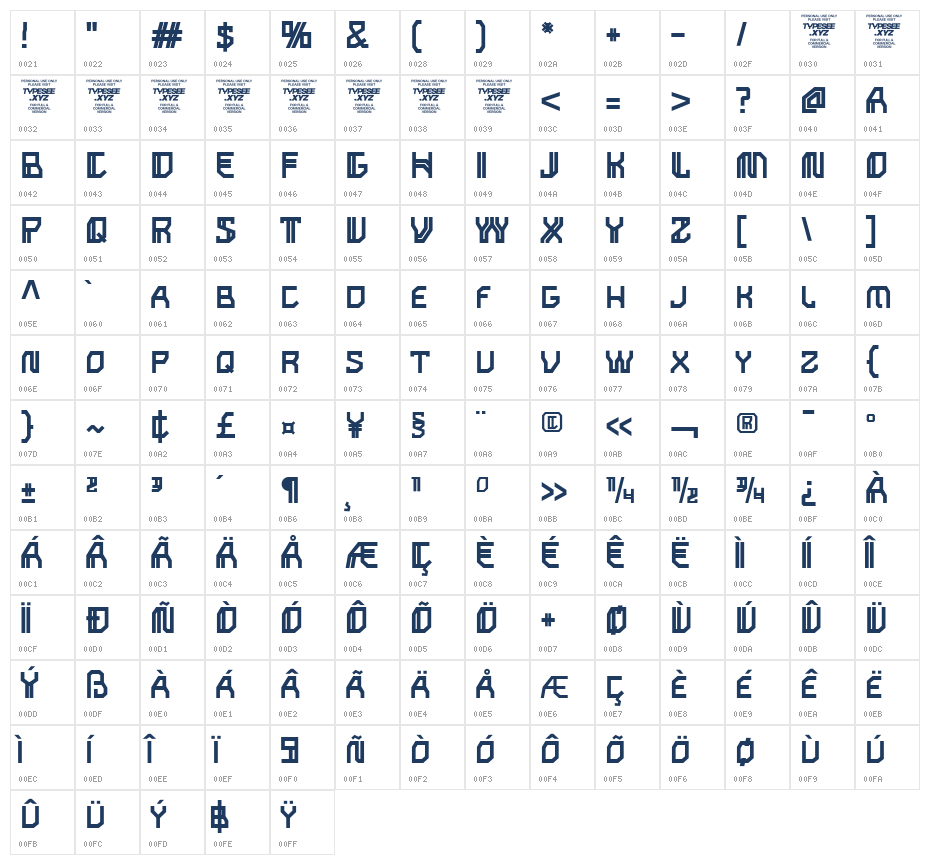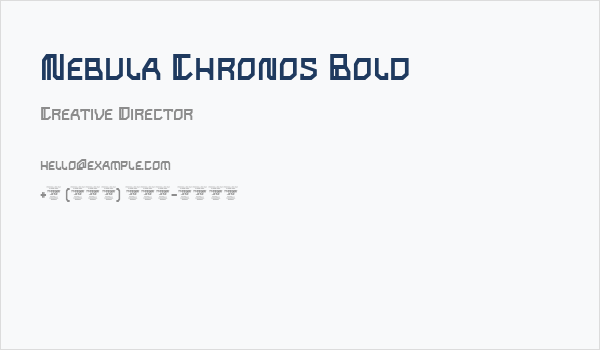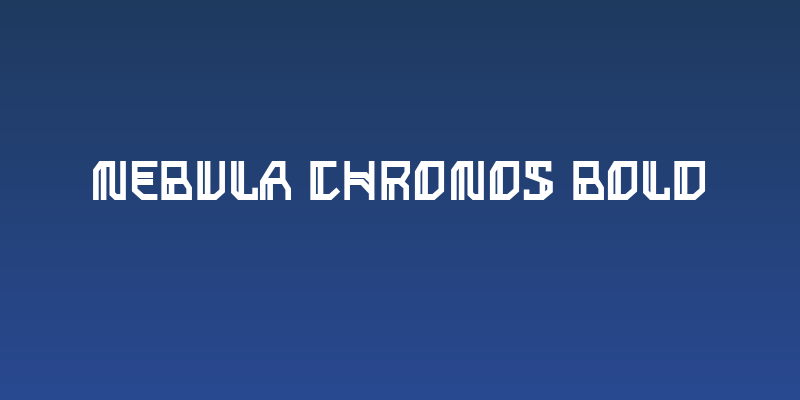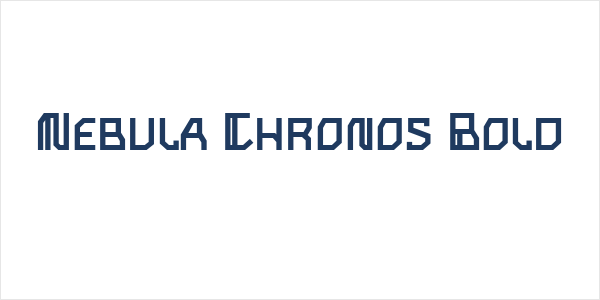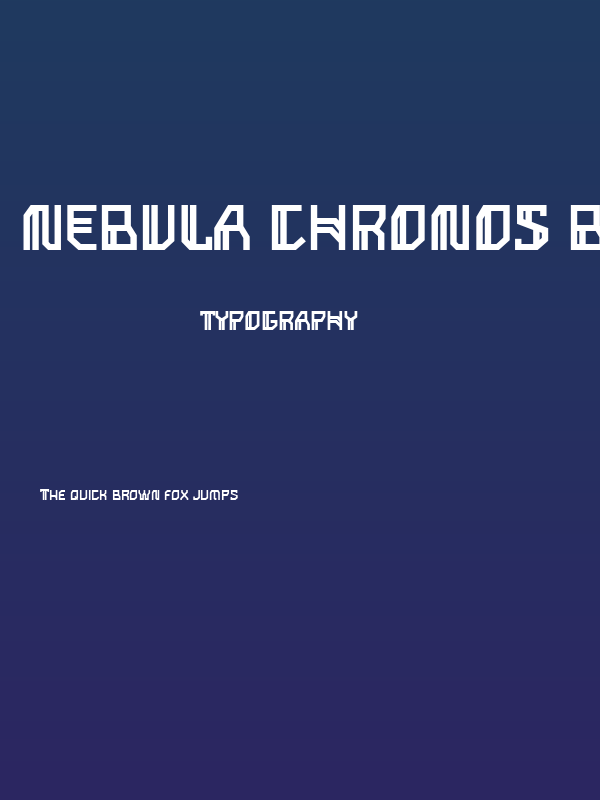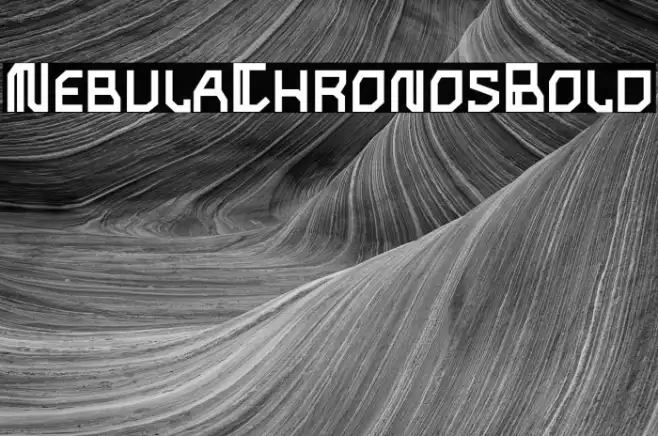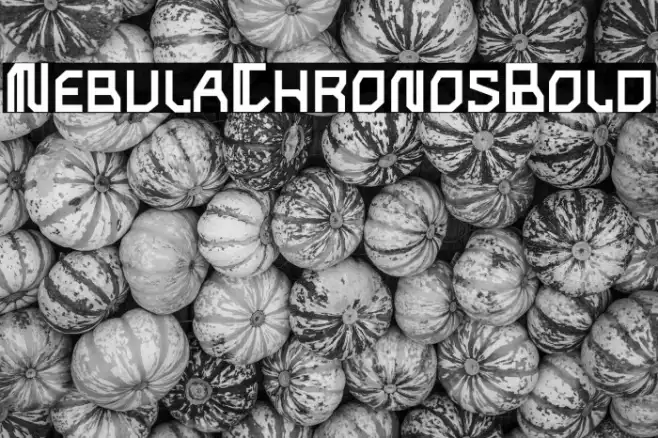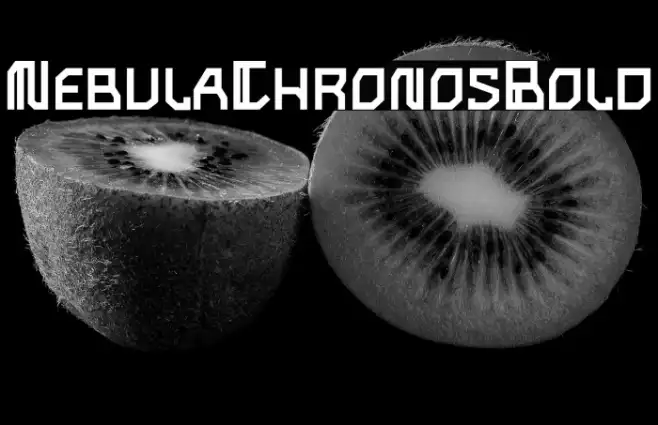
Nebula Chronos Bold Font
Nebula Chronos Bold Description
A bold, geometric, stencil-style font with a futuristic and industrial appearance, characterized by sharp angles and consistent stroke widths.
| Overall Style | Futuristic, Industrial |
| Author | Fonts by Funtype Co. |